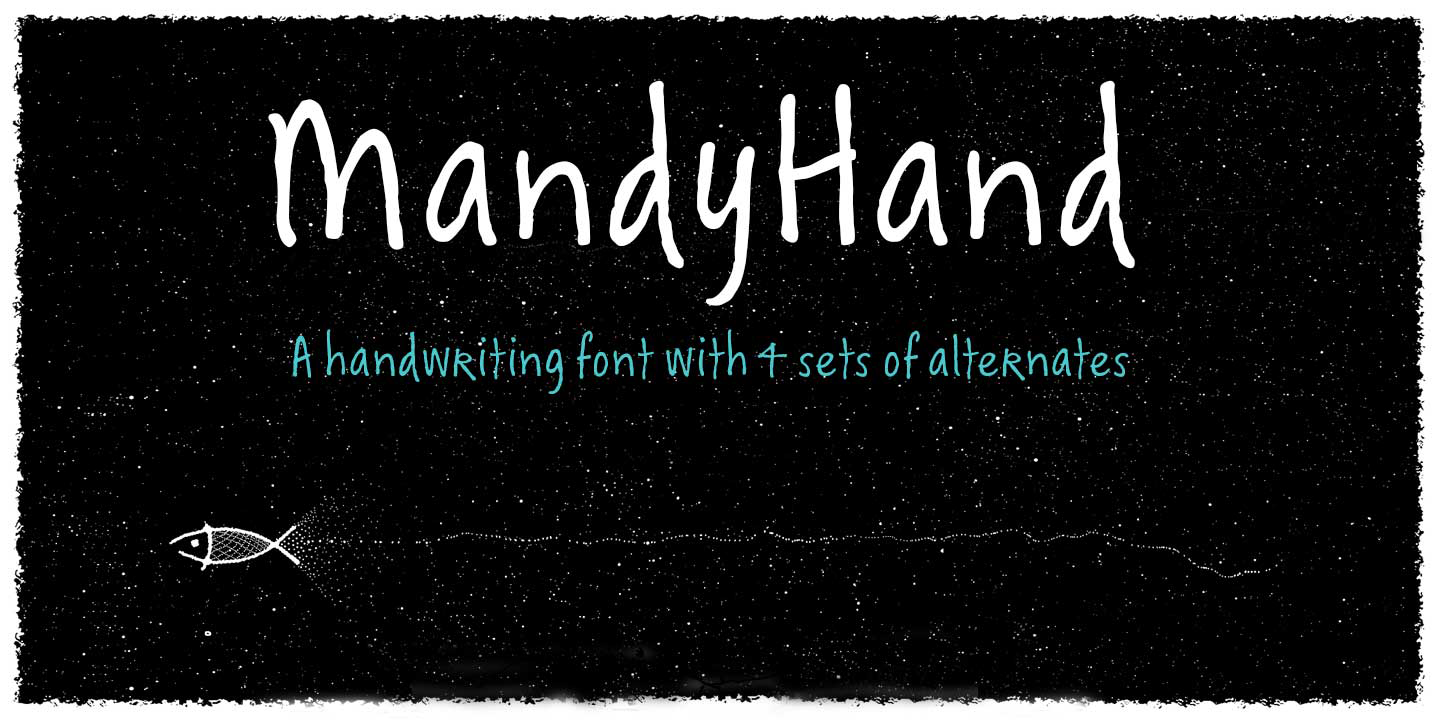
If you’re looking for a handwritten font that brings personality and warmth, Mandy Hand Font Free Download is an ideal choice. Its casual, flowing script style adds a personal touch perfect for invitations, greeting cards, branding, and social media graphics.
Mandy Hand Font Free Download captures the natural feel of hand lettering, making your designs approachable and authentic. Whether you’re crafting heartfelt messages or playful visuals, this font adds charm and creativity.
Perfect for lifestyle brands, bloggers, and creatives, Mandy Hand Font gives your projects a friendly and genuine vibe.